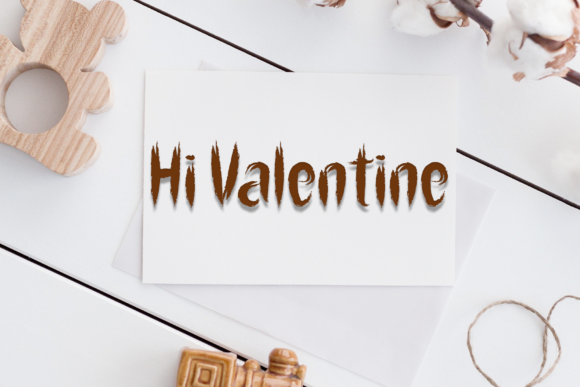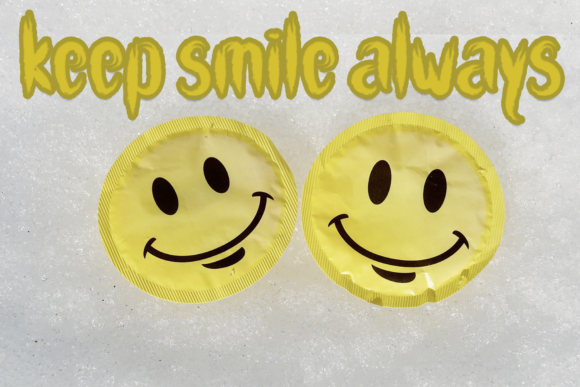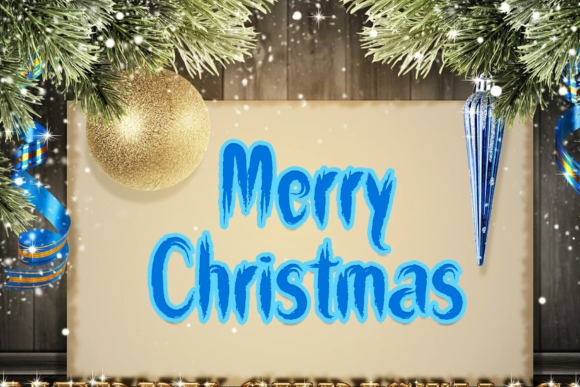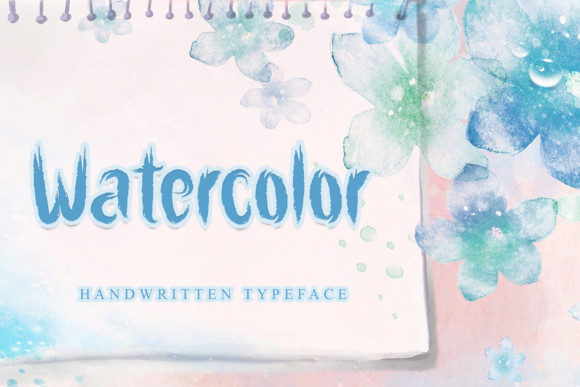
The Endearment Font: A Playful Brush Style to Elevate Your Designs
I’ll never forget the time I was working on a project for a client who wanted a custom wedding invitation. I had the perfect design concept, but I just couldn’t find the right font to bring it all together. That’s when I stumbled upon the Endearment font, a playful brush style handwritten font that completely transformed my design. In this article, I’ll share my experience with Endearment, its features, and how to make the most of it in your creative projects.
An Honest Review of Endearment Font
What I Love About Endearment ✨
- 💫 Unique and playful brush strokes that add a personal touch to any design
- ✅ Highly legible, even in smaller sizes
- 🎨 Versatile and suitable for a wide range of creative projects, from invitations to social media graphics
- 🌈 Beautifully crafted with a distinct character that sets it apart from other fonts
- ⚠️ Some characters may appear a bit inconsistent in terms of stroke width, which can be a minor distraction
- ⚠️ Limited availability of stylistic alternates, which might limit creative options for some users
Endearment font comes with some exciting OpenType features and glyphs that can elevate your designs. Look for:
- Ligatures: These special character combinations can add a touch of elegance to your text
- Stylistic alternates: Some characters have alternative forms that can be used to create a more personalized look
- Glyphs: A range of special characters, such as ornaments and swashes, can add visual interest to your design
The Story Behind Endearment Font
Endearment font was designed by a talented type designer who wanted to create a font that would bring a touch of warmth and personality to digital designs. Inspired by traditional brush calligraphy, Endearment is the perfect blend of playfulness and sophistication.
| Font Name | Endearment Font |
| Author | GiaLetter |
| What type of projects is Endearment font best suited for? | Endearment font is versatile and can be used for a wide range of projects, including invitations, social media graphics, blog posts, and more. |